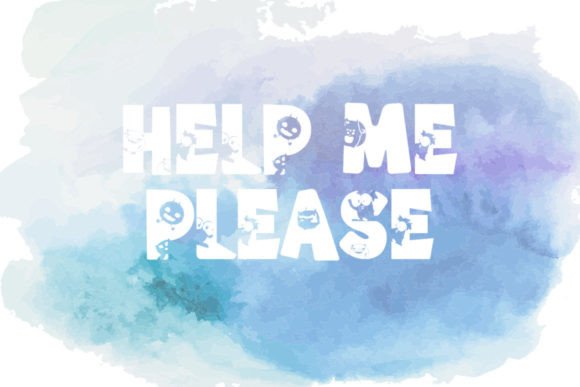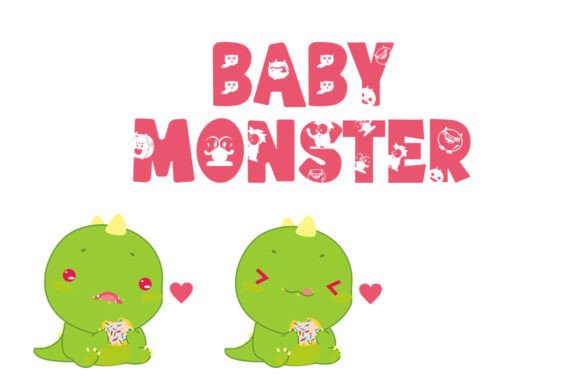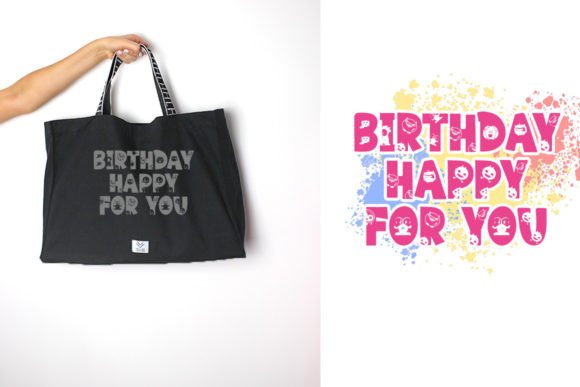
Introduction to Picture Monster Font Font
Fonts play a crucial role in design, and the Picture Monster Font font is a typeface that brings both character and versatility to any project. Whether you’re working on a branding project, a website, or a print design, the Picture Monster Font font offers a unique style that can elevate your work.
Picture Monster is a beautiful and sweet font.
It is fresh, clean, and elegant This font will look amazing in a great amount of projects, both formal and informal.
Key Features of Picture Monster Font Font
Why Choose Picture Monster Font Font?
The Picture Monster Font font is more than just a typeface – it’s a design tool that helps you communicate your message with style and clarity. Its unique character set and versatile design make it suitable for a wide range of applications, from elegant invitations to bold headlines.
With its carefully crafted letterforms and balanced proportions, the Picture Monster Font font ensures readability and visual appeal across all mediums.
What makes Picture Monster Font font special?
The Picture Monster Font font stands out with its unique design, exceptional readability, and versatility across various design applications.